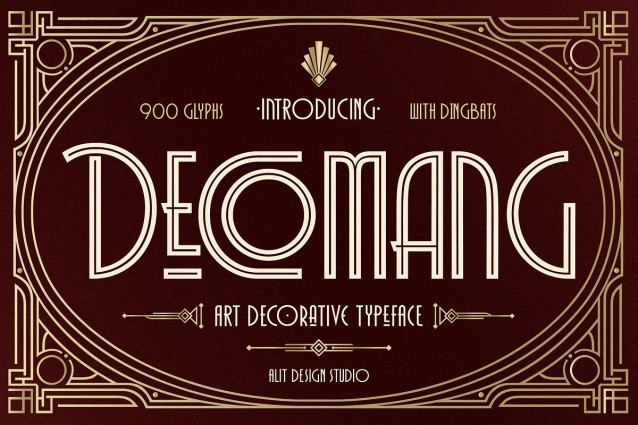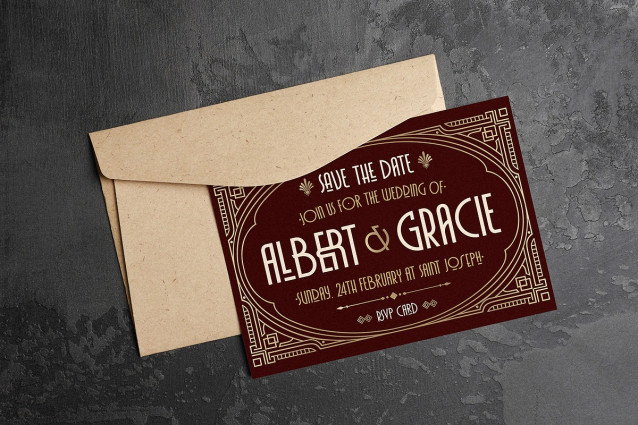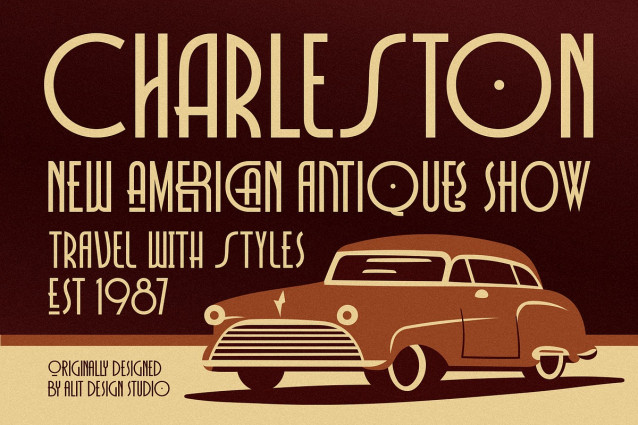
Decomang Font
Decomang Font, a versatile and elegant typeface that brings the bold sophistication of the 1920s to your designs. Perfect for branding, invitations, posters, and editorial projects, this typeface combines geometric precision with dynamic flair.